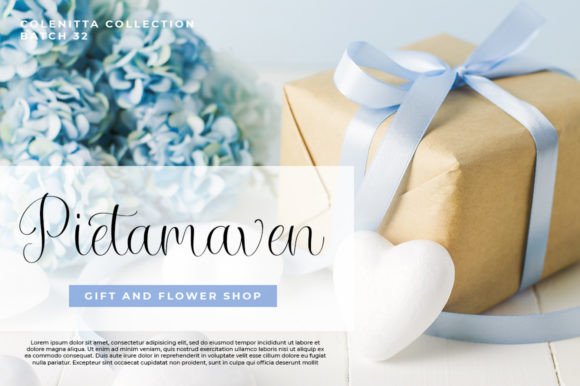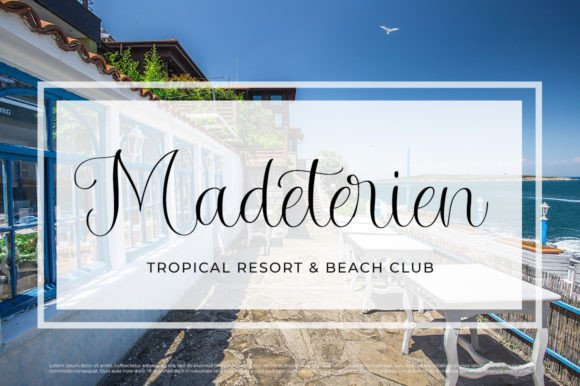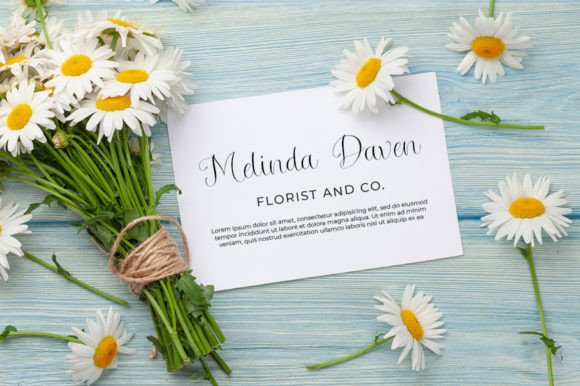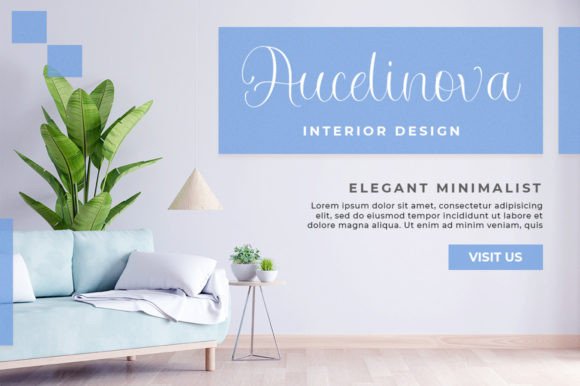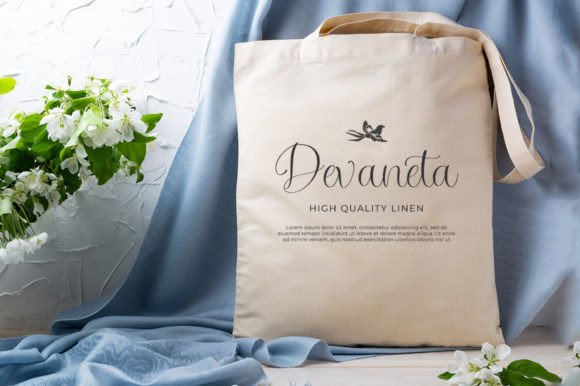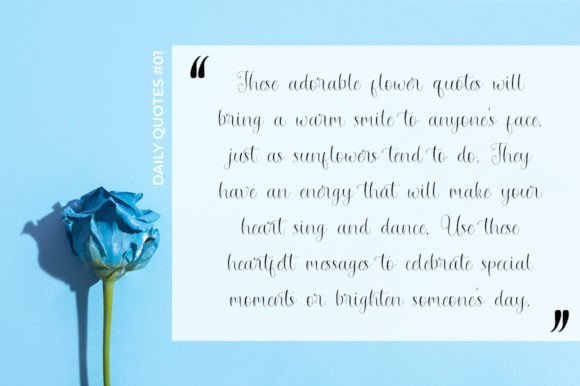
Introduction to Navidena Font
Introducing Navidena Script, a stylish Font Style.
This beautiful script font offers your personal touch to your latest art project with an elegant, classy, and modern look The Navidena Script offers gorgeous typographic perfect for many different projects such as logos & branding, invitations, stationery, wedding designs, social media posts, advertisements, product packaging, product designs, labels, photography, watermarks, special events, or anything that needs handwriting taste.
Key Features of Navidena Font
Why Choose Navidena Font?
Navidena Font offers exceptional quality and versatility, making it a valuable addition to your design toolkit. Whether you’re creating for personal projects or commercial use, Navidena Font delivers professional results.